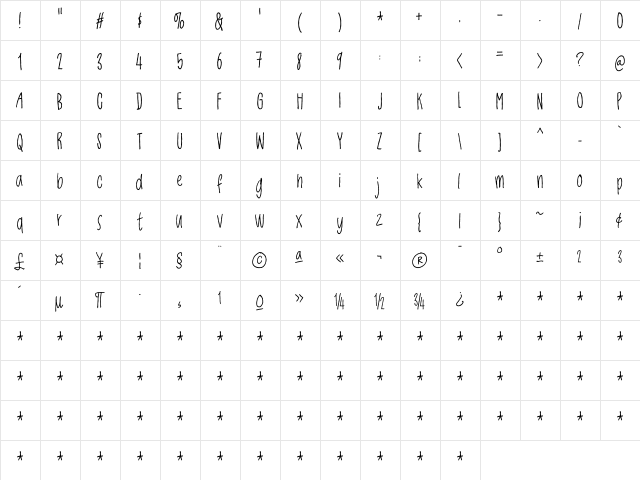
Jackdaws DEMO Regular
Design Context for Jackdaws DEMO Typeface
Jackdaws DEMO is a composed and adaptable typeface that performs quietly and consistently across a wide range of design contexts.